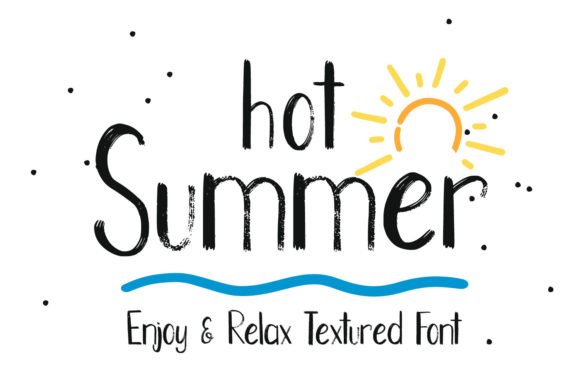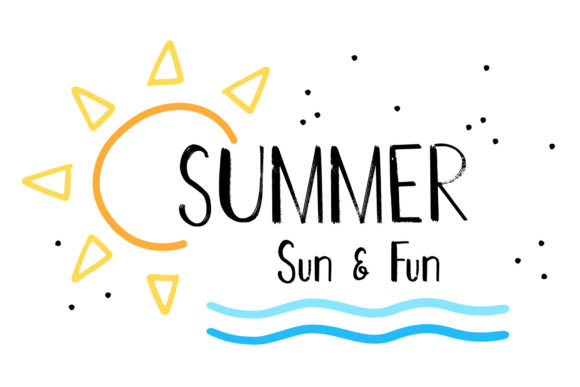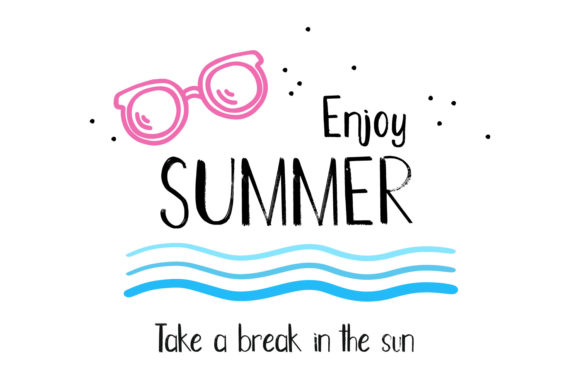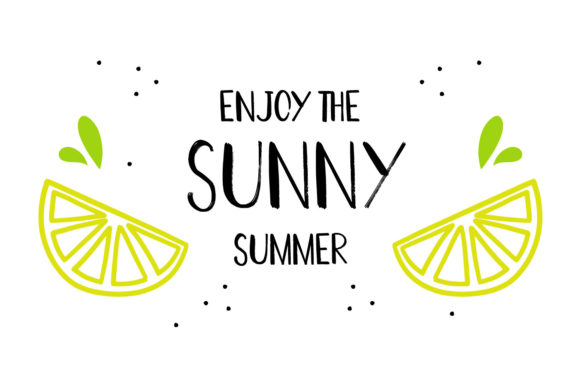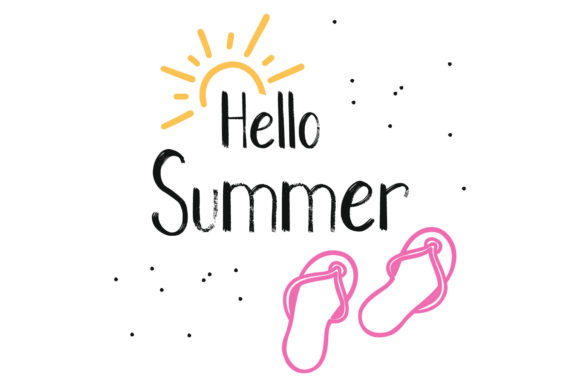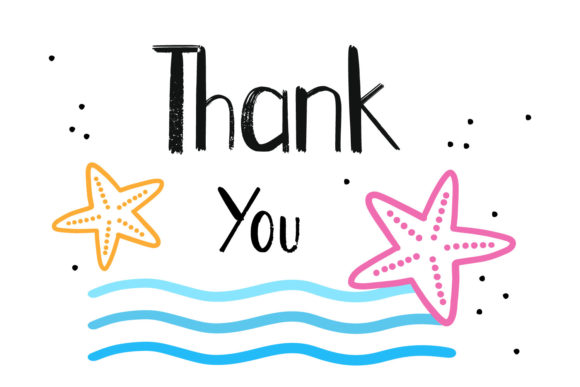
The Perfect Typography for Sizzling Summer Vibes
As a designer, have you ever found yourself struggling to capture the essence of a sweltering summer day in your work? Maybe you’re brainstorming ideas for a new logo or trying to convey the excitement of a music festival through your typography. Whatever the project, the right font can make all the difference.
Enter the Hot Summer Font, a stylish sans serif font that embodies the carefree spirit of the season. With its textured look and playful feel, this font is perfect for everything from quotes and shirt designs to branding and blog posts. Whether you’re a seasoned designer or just starting out, the Hot Summer Font is a valuable addition to your toolkit, offering a unique and eye-catching way to bring your ideas to life.
Hot Summer Font Key Features
- Font Family: Hot Summer Font is a sans-serif font family designed for modern and trendy applications.
- Unique Characteristics: Features a unique, modern design with a bold and playful feel, perfect for branding and advertising materials.
- Font Style: Includes 5 font styles: Regular, Bold, Italic, Bold Italic, and Outline, offering flexibility for various design needs.
Designer Review: “Hot Summer Font”
Overall, I think “Hot Summer Font” is a decent addition to any design project, especially for those looking to create a fun, carefree atmosphere.
- Playful feel: The font’s casual, handwritten style is perfect for summer-themed projects, music festival designs, or any other project that needs a relaxed vibe.
- Variety of weights: The font comes in multiple weights, allowing designers to choose the perfect level of playfulness for their project.
- Easy to read: Despite its playful nature, the font is still easy to read, making it a great choice for body text.
- Lack of sophistication: While the font is great for casual projects, it may not be the best choice for more formal or professional designs.
- No italic or oblique: The font only comes in upright, which may limit its use in certain situations.
Overall, I’d give “Hot Summer Font” 3.5 out of 5 stars. It’s a fun, easy-to-use font that’s perfect for casual projects, but may not be the best choice for more formal or complex designs.
To get the most out of the “Hot Summer Font”, consider the following tips:
- Use it for summer-themed designs, such as beach or pool party invitations.
- Combine it with bright and bold colors to create a fun and playful look.
The “Hot Summer Font” is commonly used for:
- Summer-themed social media posts and graphics.
- Beach or pool party invitations and promotional materials.
- Summer-themed blog posts and articles.
Alternatives to “Hot Summer Font” for Designers
1. Summer Breeze
Summer Breeze is a playful, handwritten font that captures the carefree spirit of a warm summer day. It’s perfect for creating a lighthearted and approachable vibe in your design.
Compared to Hot Summer Font, Summer Breeze has a more relaxed, cursive feel that’s ideal for text-based designs. It’s also more versatile, working well in both digital and print formats.
2. Sunset Boulevard
Sunset Boulevard is a modern, sans-serif font that evokes the feeling of a warm summer evening. It’s great for creating a sense of sophistication and elegance in your design.
Unlike Hot Summer Font, Sunset Boulevard has a more geometric, structured feel that’s perfect for headlines and titles. It’s also highly legible, making it suitable for body text.
3. Beachy Keen
Beachy Keen is a fun, distressed font that captures the laid-back vibe of a beachy summer. It’s perfect for creating a casual, relaxed atmosphere in your design.
Compared to Hot Summer Font, Beachy Keen has a more rugged, textured feel that’s ideal for designs that require a sense of imperfection. It’s also highly customizable, allowing you to adjust the level of distressing to suit your needs.